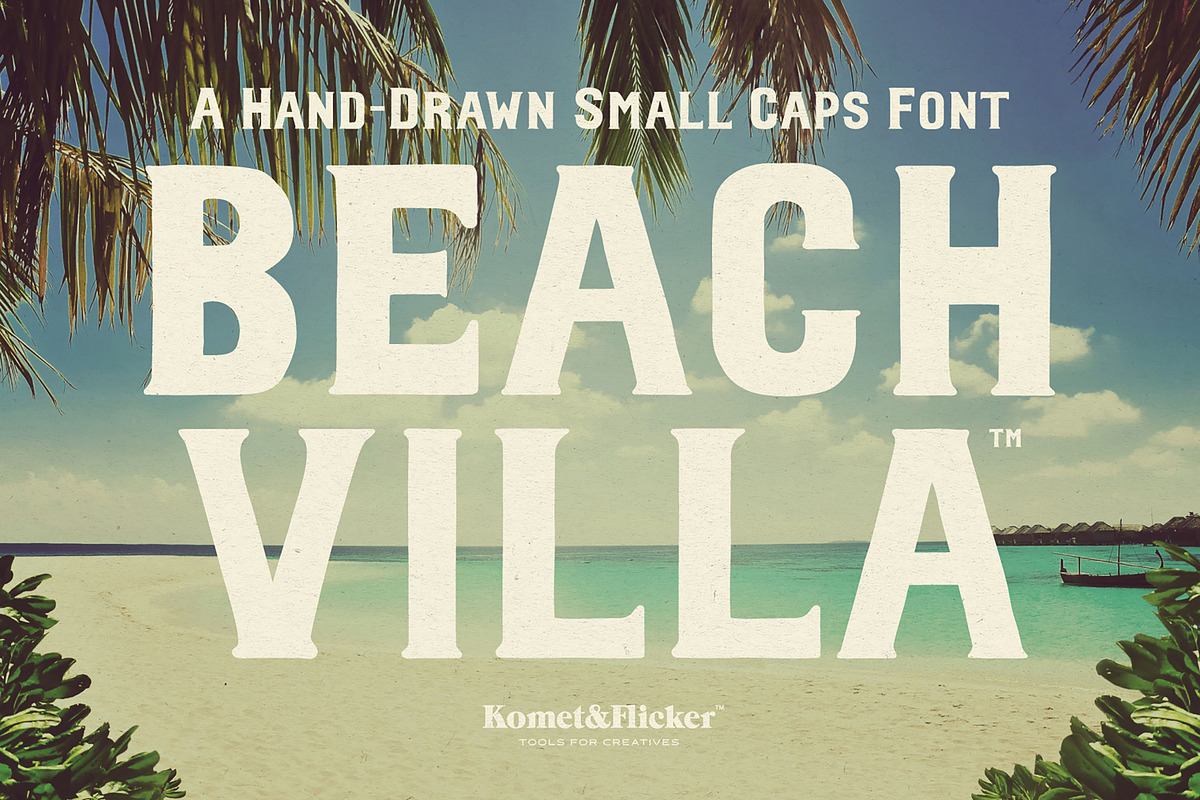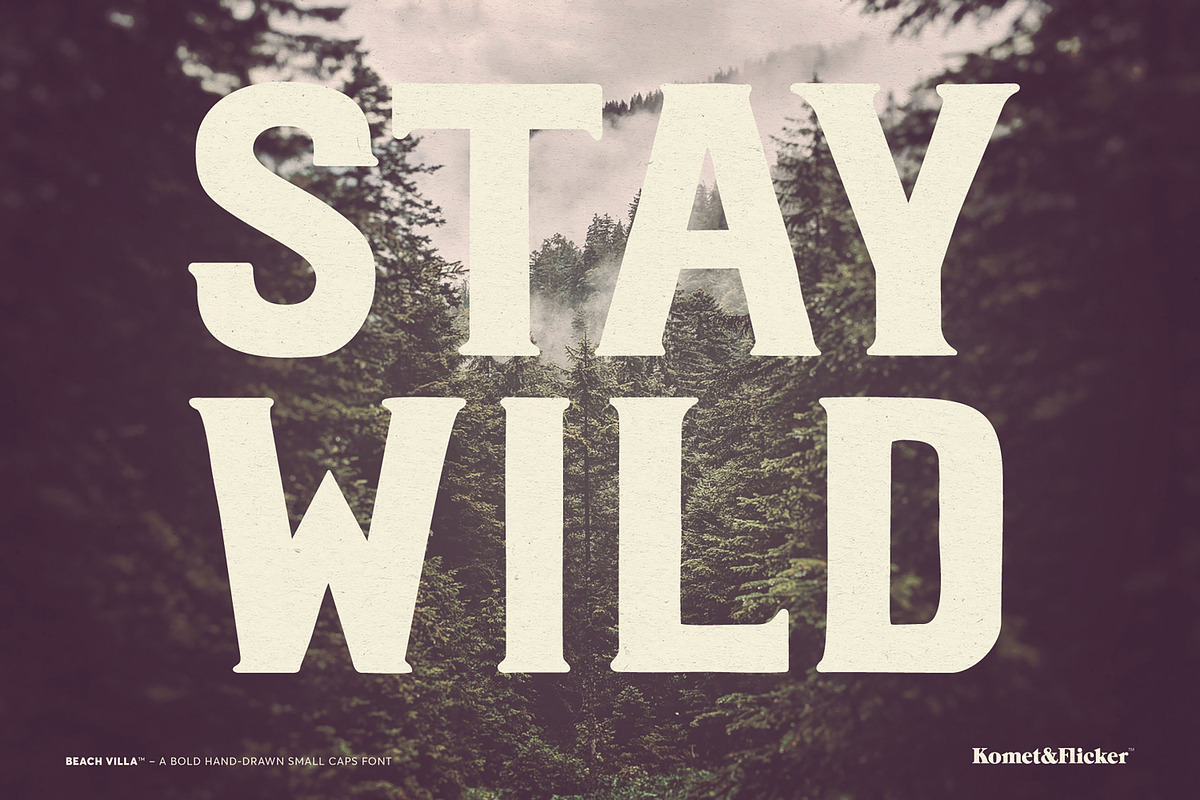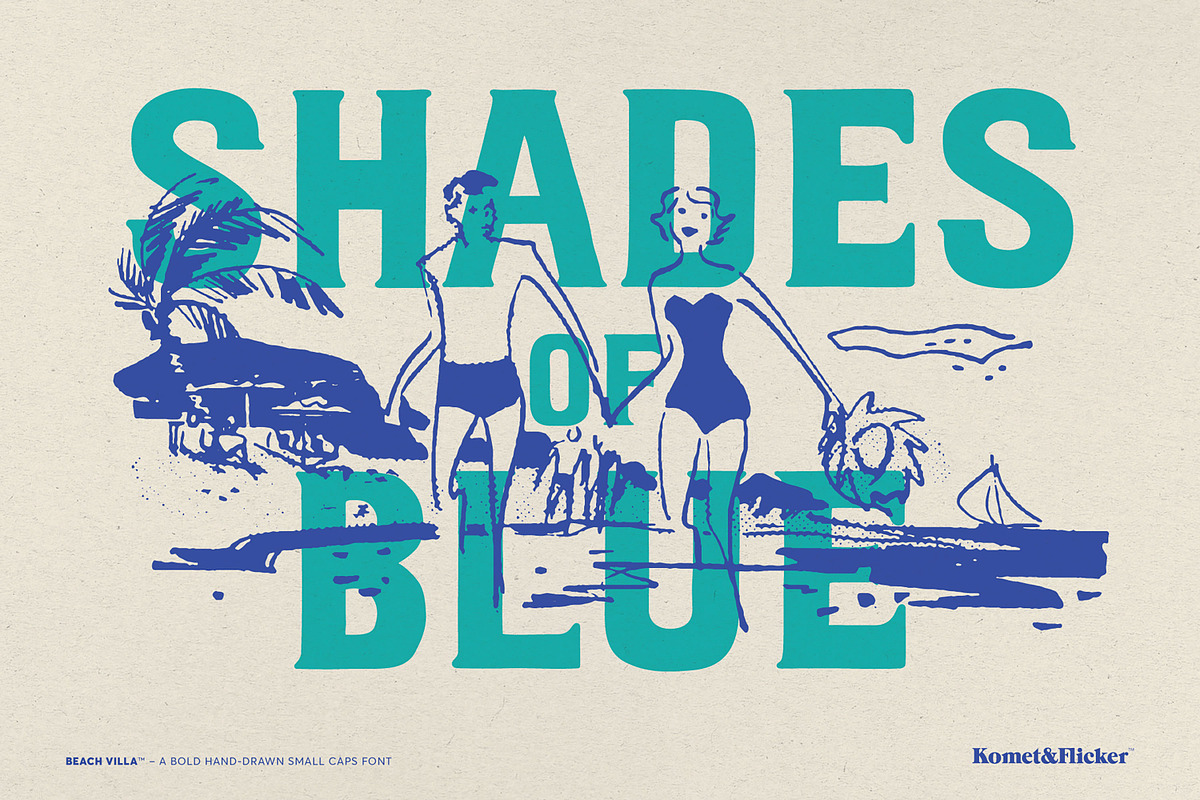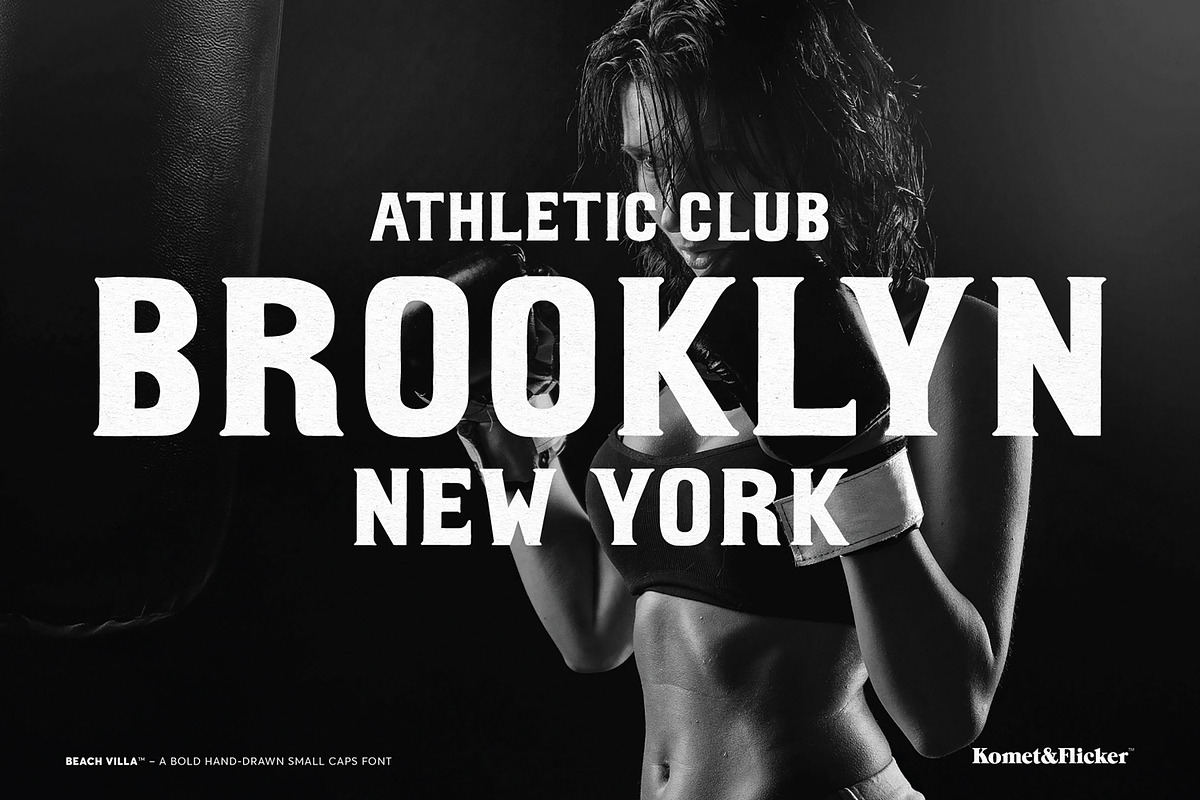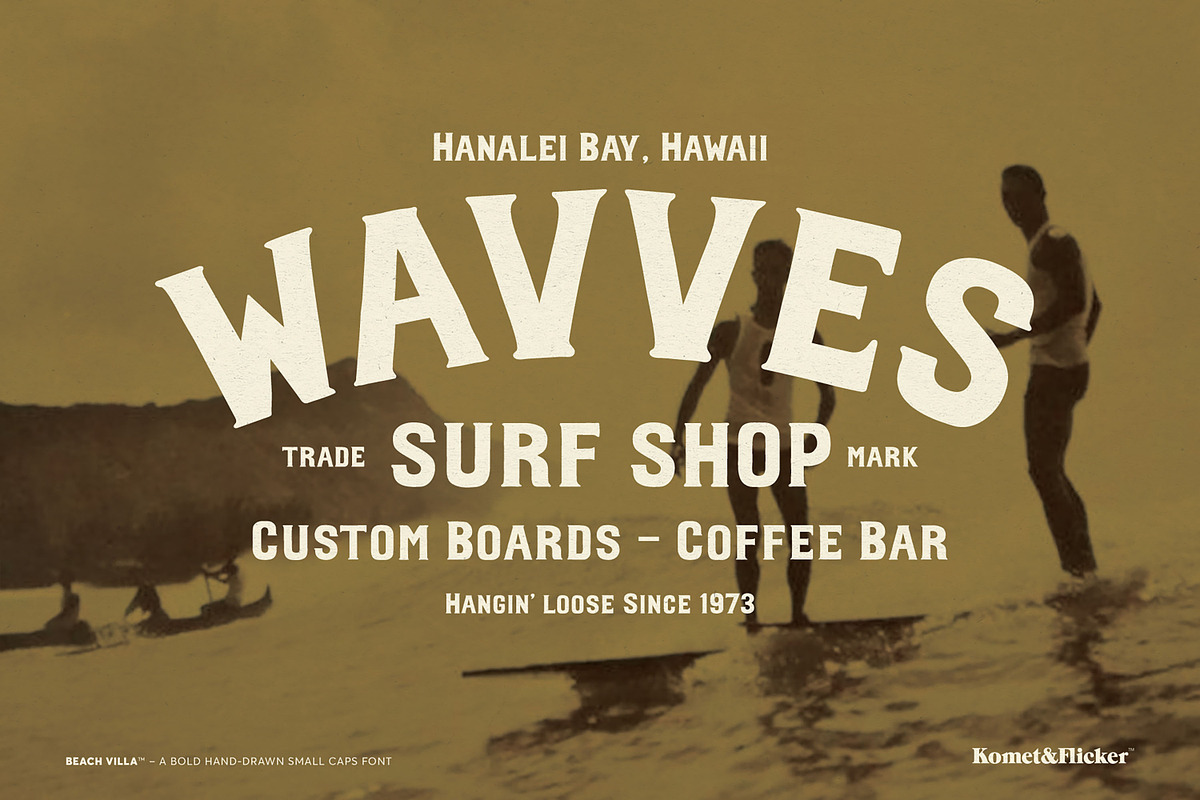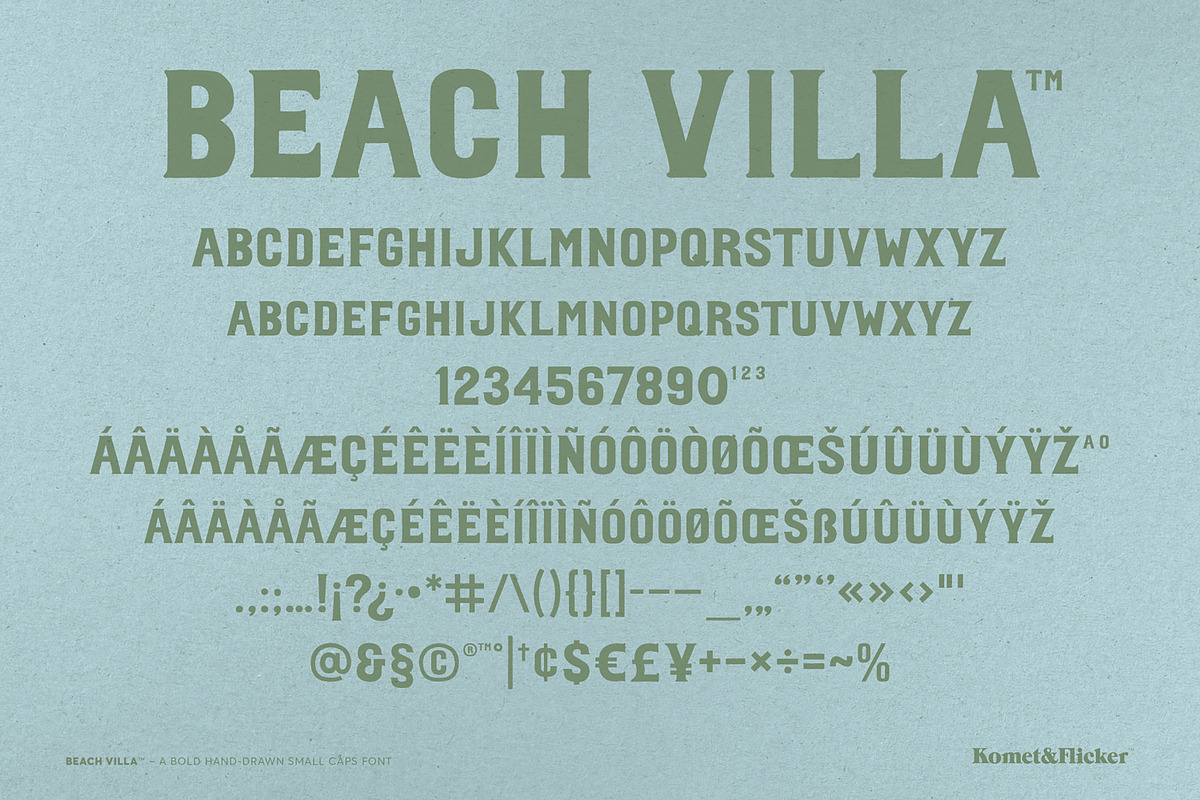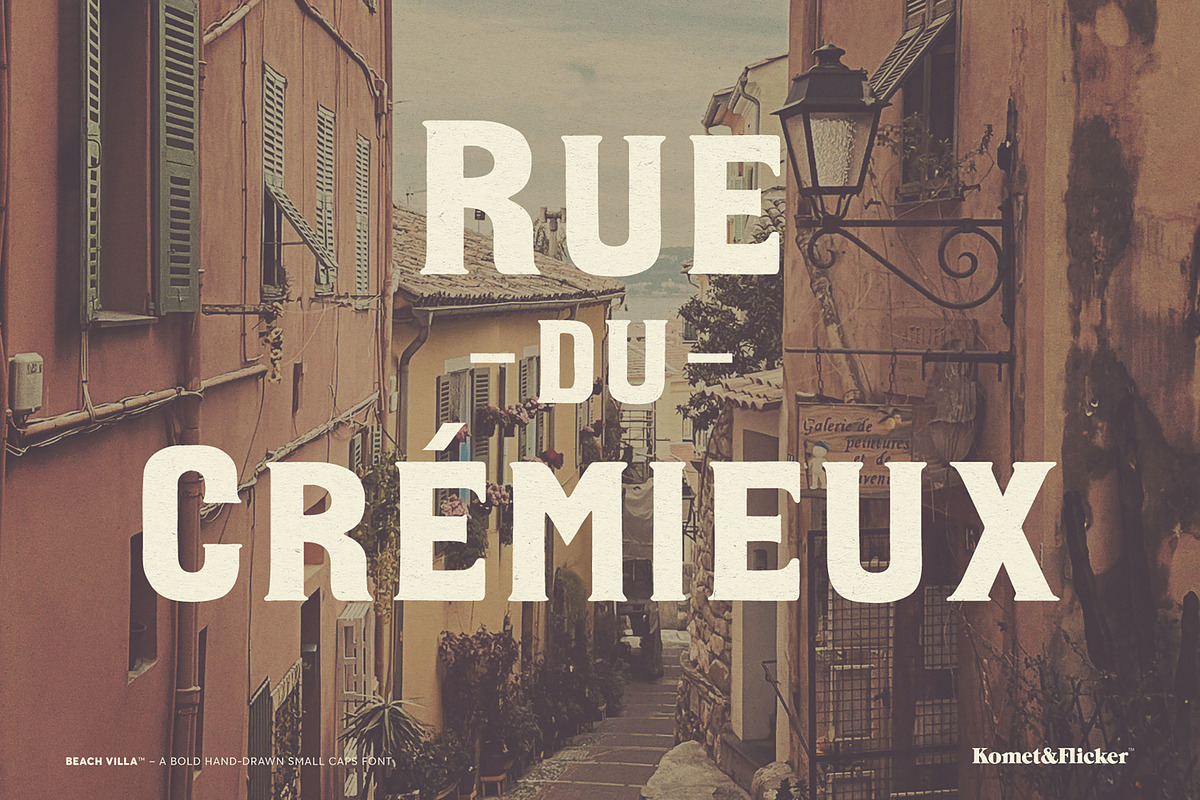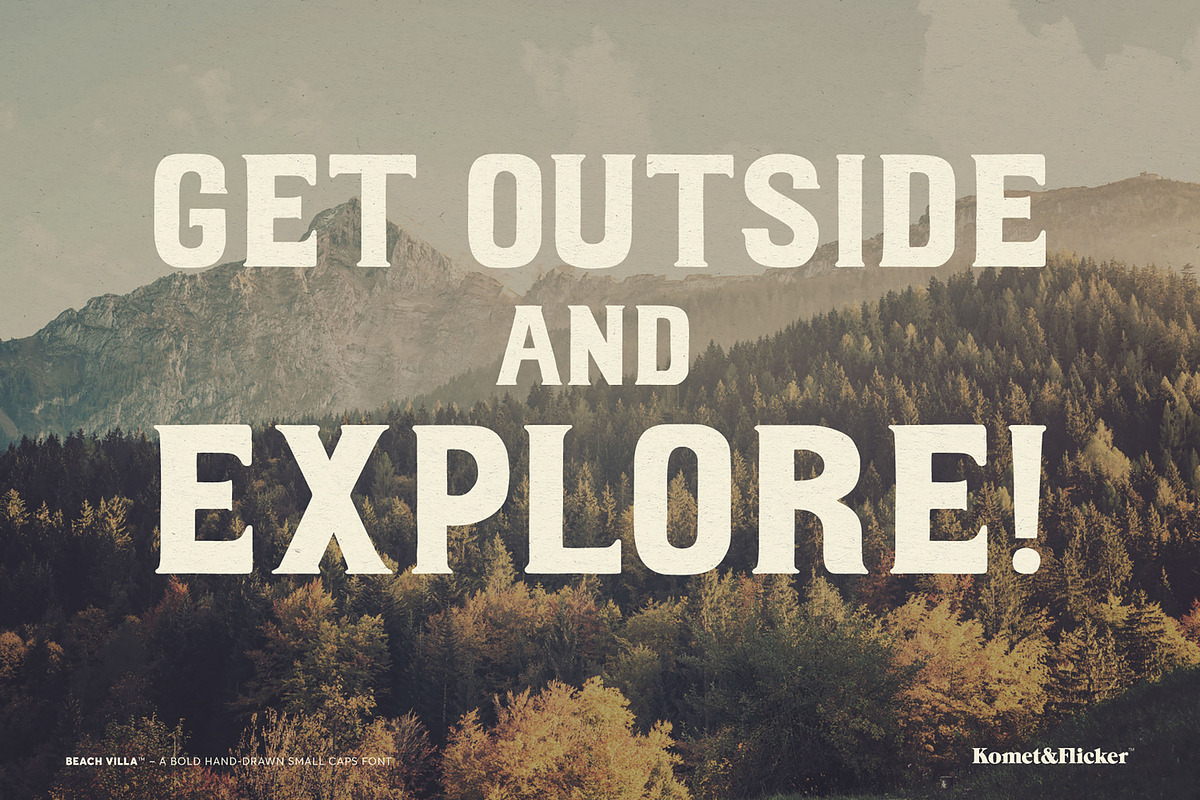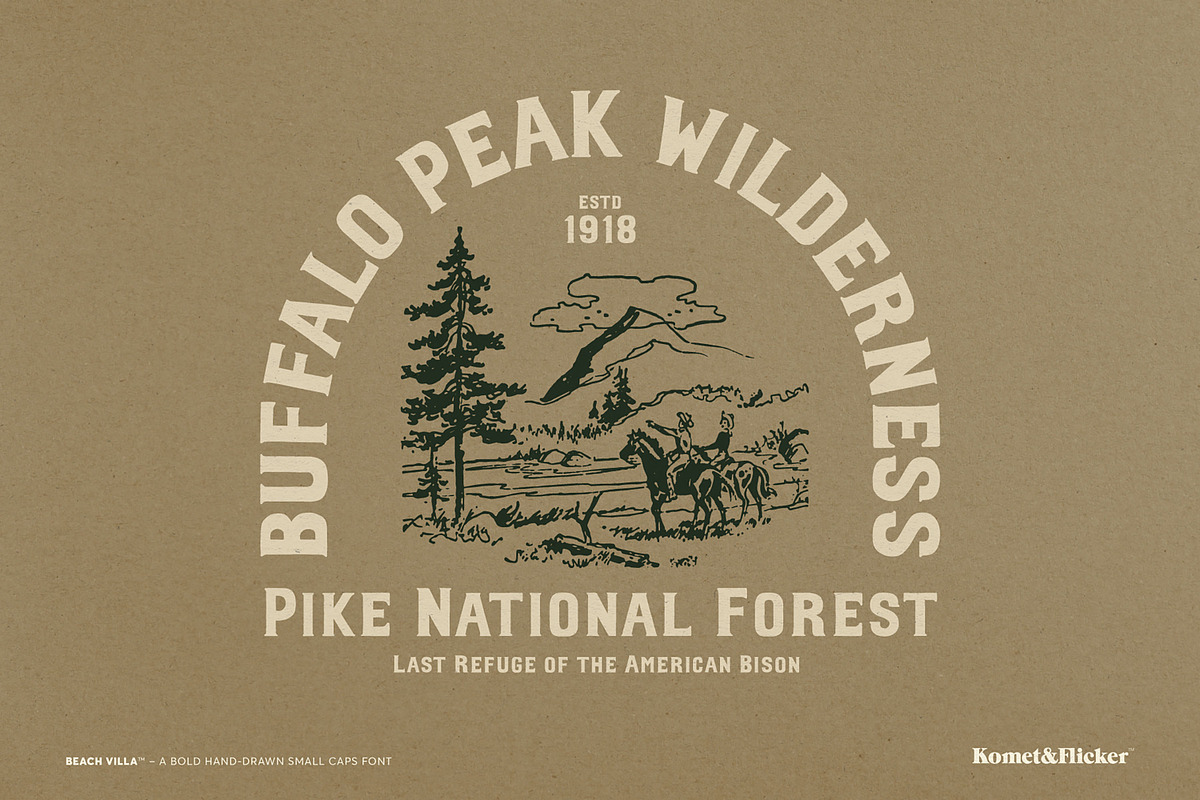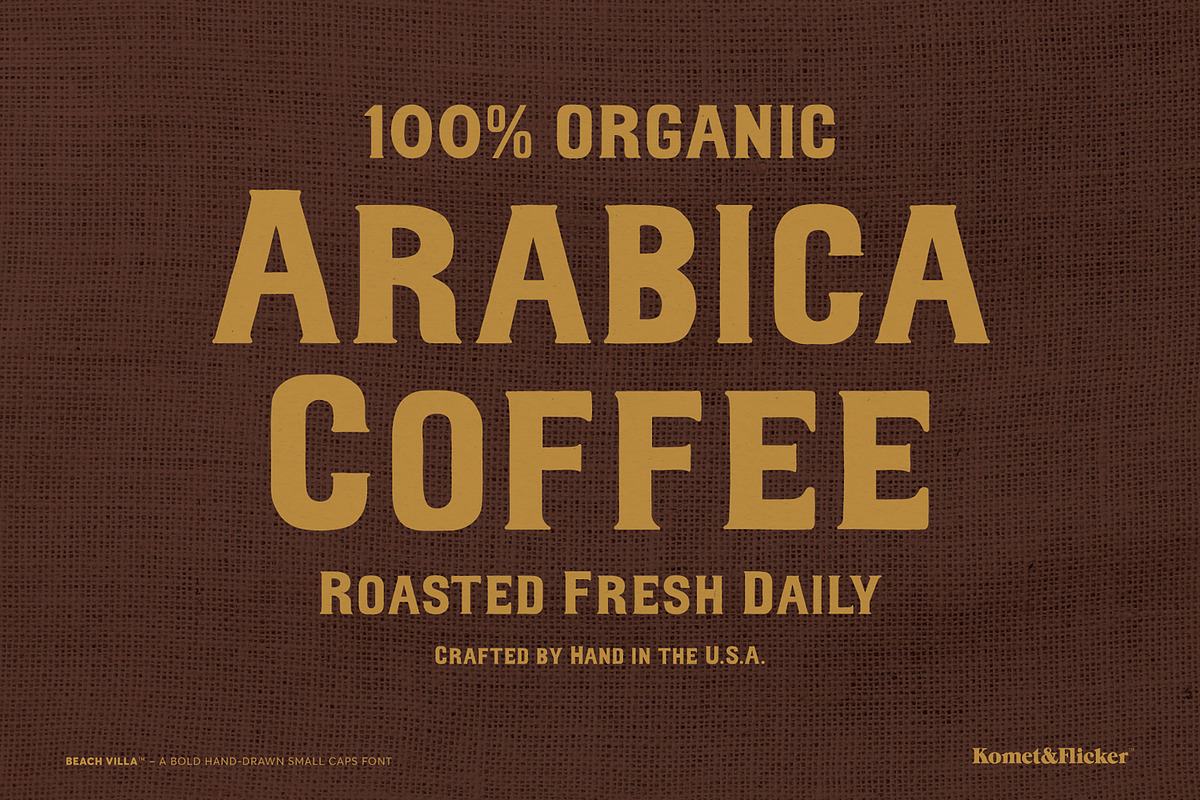
Beach Villa - A Bold Hand-Drawn Font
Meet Beach Villa, a bold hand-drawn small caps font that embodies the relaxed spirit of tropical beaches and vibrant outdoor adventures. With its rough strokes and vintage character, Beach Villa is the perfect choice for designs that evoke an easy-going, sun-kissed vibe.
Ideal for travel and restaurant themes, this font adds a touch of warmth and personality to menus, signage, and promotional materials. Whether you're crafting eye-catching graphics for outdoor escapades or capturing the excitement of classic sports designs, Beach Villa brings an energetic flair that resonates with your audience.
Transform your designs with Beach Villa, where boldness meets a laid-back aesthetic, perfect for any creative endeavor that celebrates adventure and relaxation.
- Full A-Z uppercase and small caps basic latin characters
- Select European specific characters
- Numbers, punctuation, and select symbols